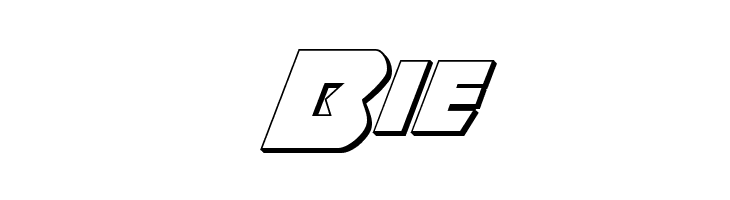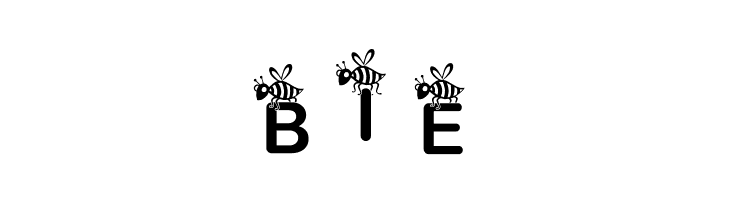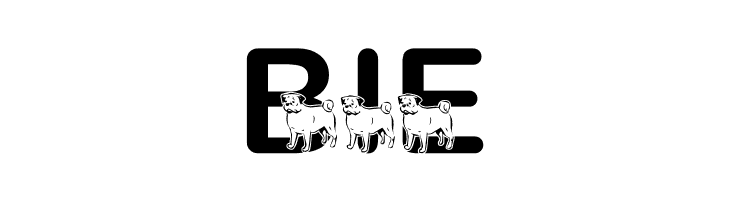
A modern, ultra-thin sans-serif font with a minimalist design.
A gothic, distressed font with ornate and intricate letterforms.
A bold serif font with high contrast and strong, classic design elements.
A decorative and intricate font with gothic influences and bold, ornate letterforms.
A classic serif font with tall, narrow characters and pronounced serifs.
A bold, 3D geometric font with a modern and dynamic style.
A playful font with bee motifs integrated into bold, rounded characters.
A playful font with bold letters and integrated cartoon dog illustrations.
A bold, abstract font with fragmented, angular characters.
A bold, jagged font with a chaotic, shattered appearance.